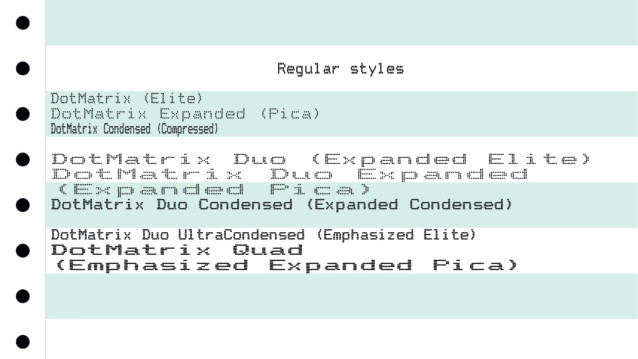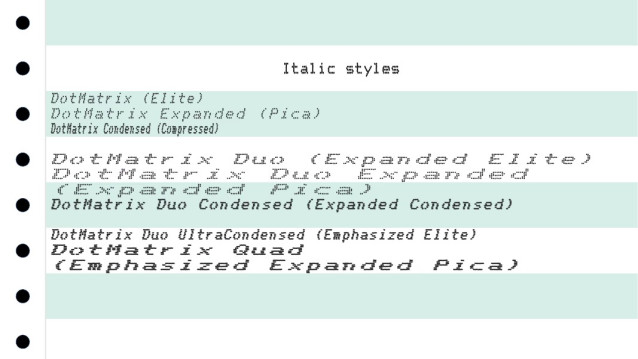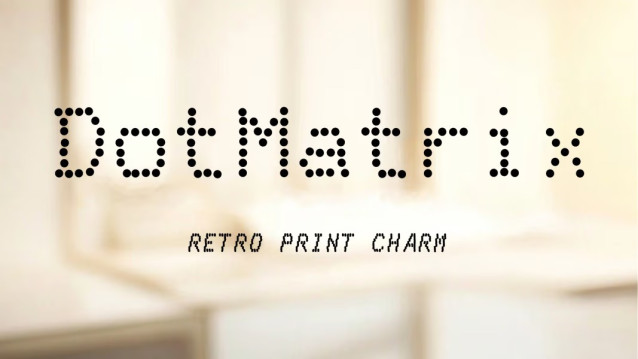
DotMatrix Font Family
DotMatrix Font Family is a font inspired by the dot matrix printers of the 1980s, capturing the essence of the printing technologies from that era. It’s perfect for evoking a retro or nostalgic feel, rendering ASCII/ANSI art, or use within code editors. For true scale, use 10 point text.
Features
Character Set: Includes 537 characters featuring the full set from the Epson FX-80 printer, DOS code page 437, Google Fonts Latin Core, Greek Core, Cyrillic Core, and Hebrew. Note, the italic subset is limited to 191 characters due to historical constraints.
Dot Jitter: Simulates the inaccuracy of the printing head for an authentic look.
Epson FX-80 Modes: Mapped to different DotMatrix font families:
Epson FX-80 ModeDotMatrix Font Family
“Double-strike” is represented by the Bold style.
“Italic” corresponds to the Italic style.
“Proportional mode” is mapped to the respective Var font families.
Variable Font Axes:
Element Size: Adjusts the dot strength.
Horizontal Element Spacing: Modifies the font width.